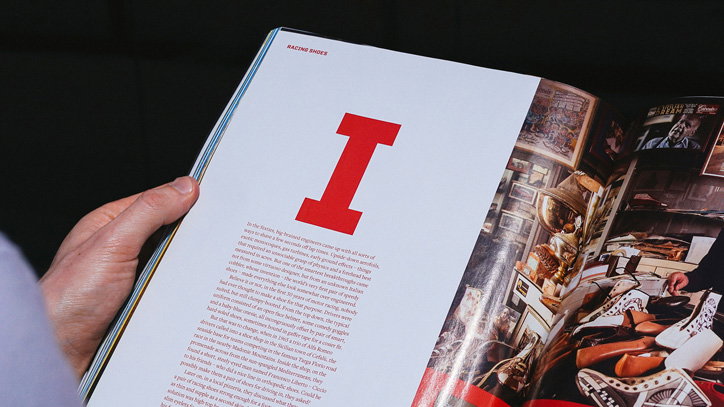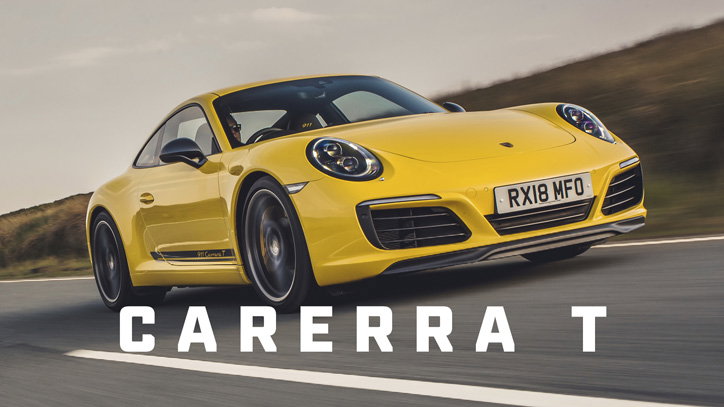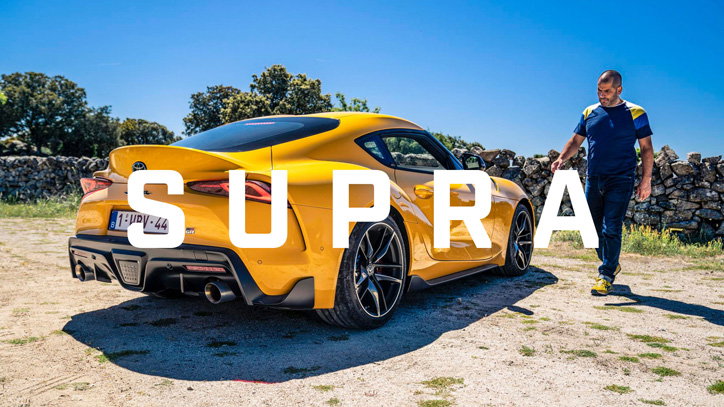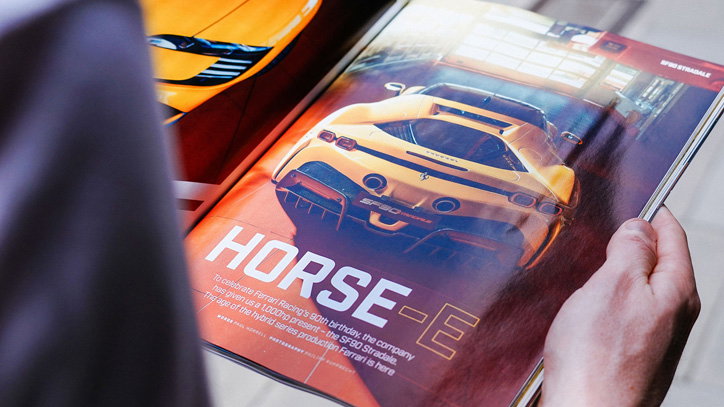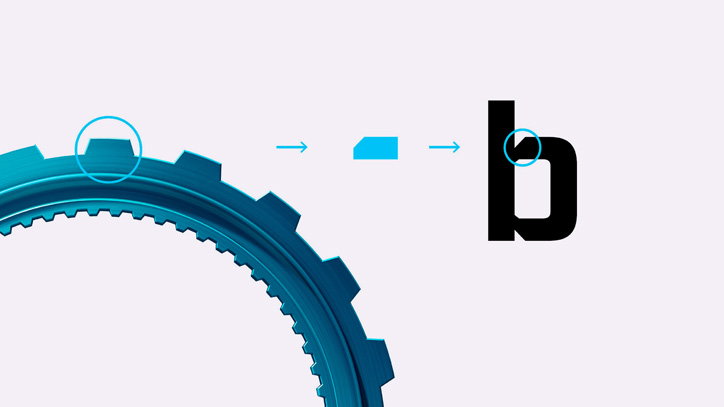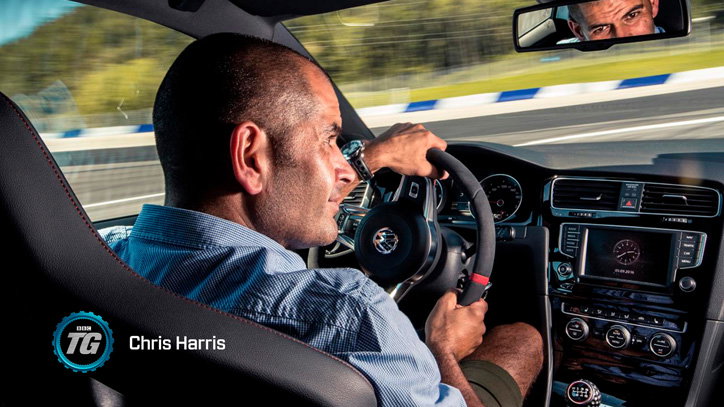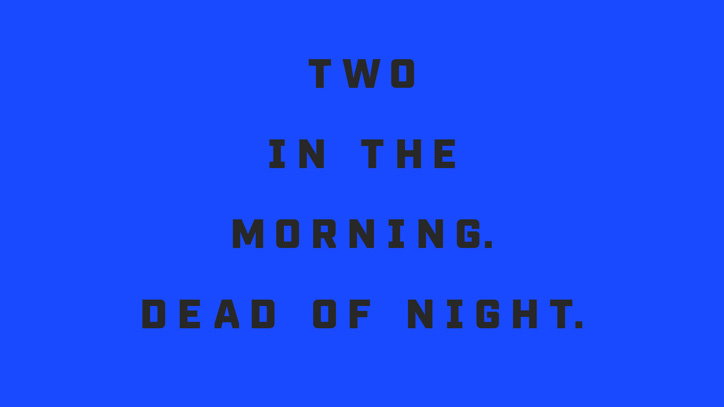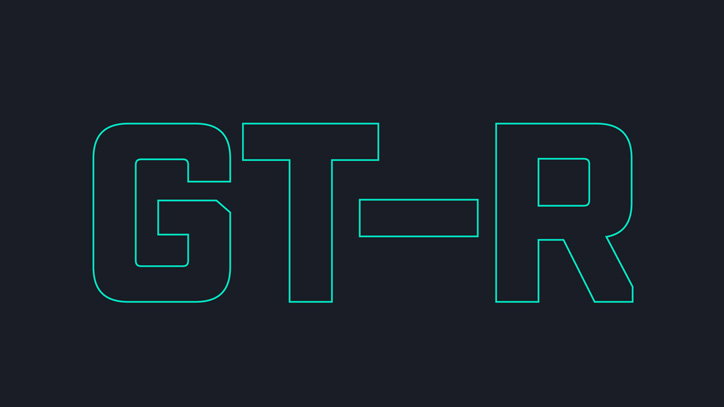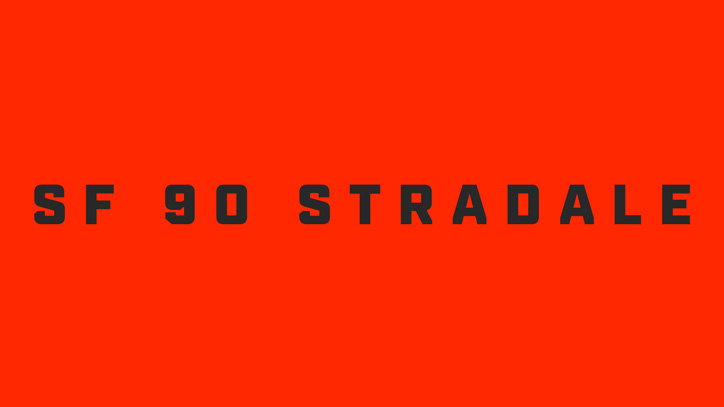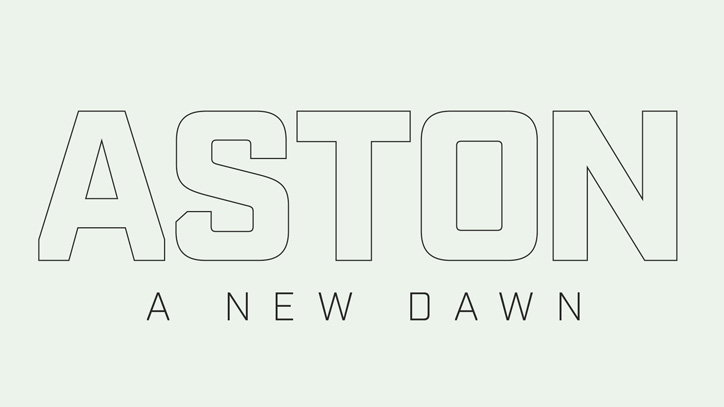
Top Gear gets its own font, courtesy of DixonBaxi and Fort Foundry
London-based design studio DixonBaxi has created a typeface for Top Gear, which will be used across the TV show, magazine and digital output. Working closely with Mattox Shuler from Fort Foundry, TG Industry is inspired by the cog in the brand’s logo and, in turn, conveys a “mechanical” aesthetic in tune with its content.
“From the outset the ambition was to create a typeface that would be unmistakably Top Gear in its aesthetic and attitude,” explains studio co-founder Aporva Baxi. The brief was to drive (ahem…) brand recognition and give the Top Gear team something “ownable” and consistent across all the different outputs, while still giving designers versatility. It comes in a range of weights from thin to ultra, with corresponding italics, and simultaneously considers magazine headlines, title sequences and mobile screens. “[It] has been designed to offer a wide range of creative expression from sleek and reductive to bold and expressive,” Baxi continues. “It signals a new dawn for the Top Gear brand as it embraces a true digital-first approach.” This is something DixonBaxi is well versed in, having previously worked on branding for Formula E, Eurosport and Channel 4.
TG Industry is inspired by the angular cuts of the Top Gear cog, with, Baxi says, “aggressive terminals taking influence from the sculpted metallic body surfaces that adorn the modern Hyper-car. The blunt end of the uppercase ‘A’ is a good example, or where the curved part of the lowercase ‘b’ meets the upright stroke – this has been given an aggressive angular edge that is inspired by the shape of the teeth on the cog icon.”
Previously Top Gear didn’t have its own font, instead it used a range of different typefaces that Baxi says varied massively based on the application and location in the world; as the show has a huge international audience. The new typeface won’t be affecting the Top Gear word marque, but, Baxi says, it has been crafted to complement it, giving the brand a visual voice.